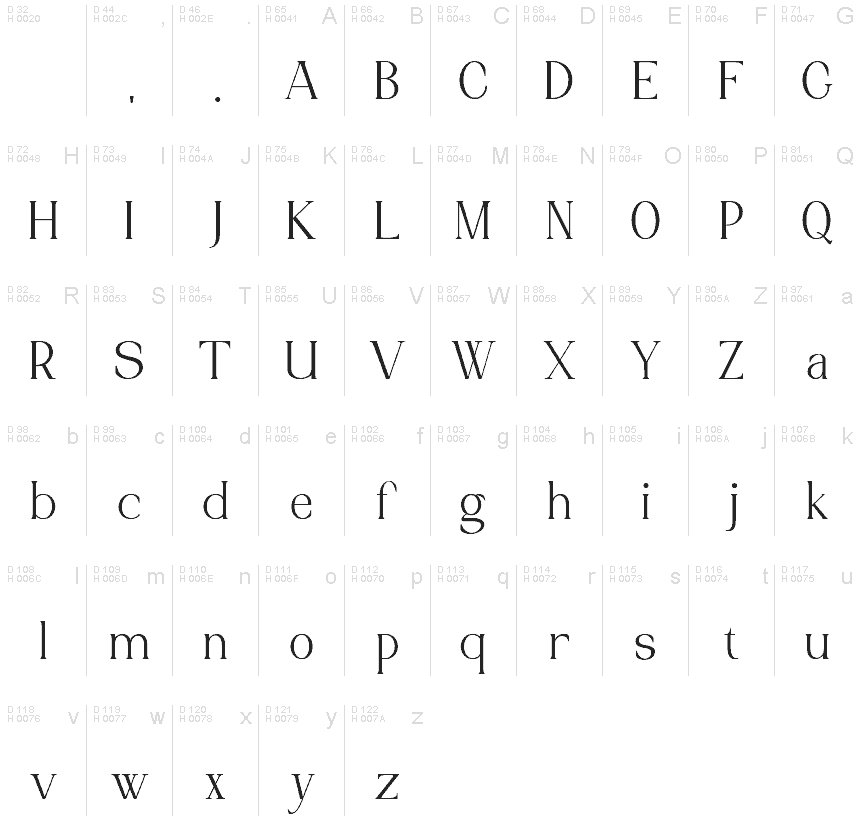
Golden Cosmic Regular
Golden Cosmic font by Achmad Yani of Flawless and co. is an elegant serif typeface that blends minimalist design with modern sophistication. Refined and streamlined, it offers a stylish appearance that complements projects seeking a touch of class and elegance.
As a free serif font, Golden Cosmic is suitable for branding design (logos & typography), packaging labels, advertising posters and banners, movie titles, book covers, brochure front pages, magazines articles where headers or subheadings are concerned.